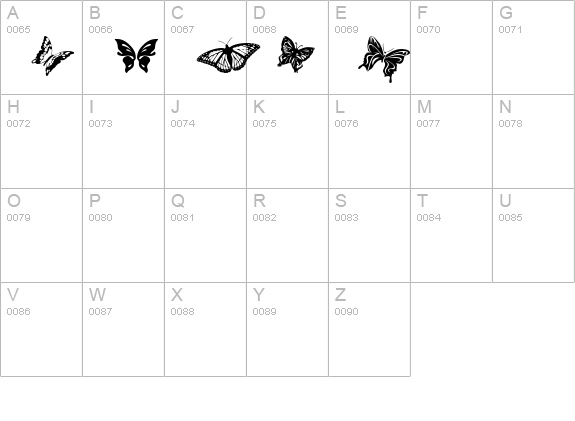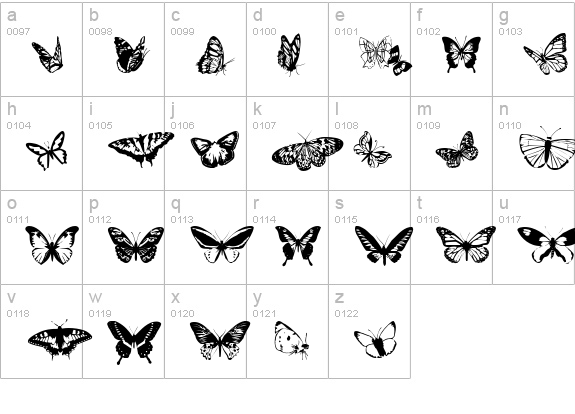
ButterfliesRegular Font Details
ButterfliesRegular font is a whimsical and elegant typeface that exudes grace and beauty. With its delicate curves and intricate details, this font is perfect for adding a touch of sophistication to your designs. Whether you are working on a wedding invitation, a logo, or a branding project, ButterfliesRegular font is sure to make a lasting impression. The best part is that ButterfliesRegular font is completely free to download at FontsMarket.com. Simply visit the website to access this stunning font and elevate your projects with its timeless charm. Don't miss out on this opportunity to enhance your designs with the enchanting ButterfliesRegular font, available for free download now!